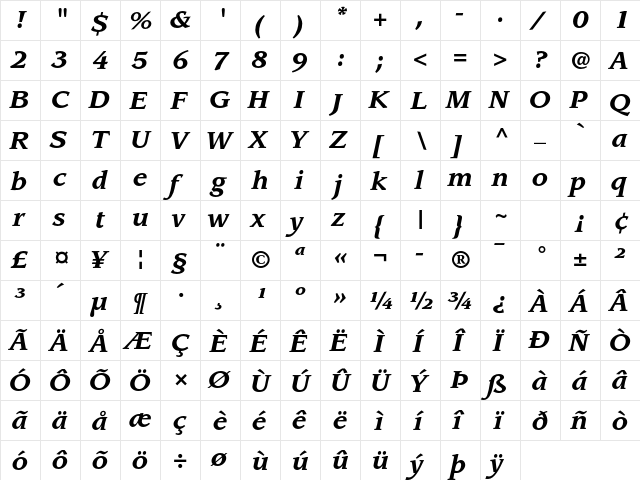
ITC Leawood Std Bold Italic Font Preview
ITC Leawood Std Bold Italic
ITC Leawood Std Bold Italic Font Details
| Designer | Leslie Usherwood |
Design Context for ITC Leawood Std Typeface
ITC Leawood Std echoes the hand-painted signage and woodblock typography of the American frontier, with a warm, rugged personality. The slanted form adds forward momentum and visual energy. The heavy weight commands attention and anchors typographic hierarchies.
Perfect for barbecue restaurants, country music branding, vintage poster design, and rustic packaging.
Font Pairing: Combine ITC Leawood Std with a simple slab or neutral sans — period-accurate companions reinforce the vintage feel without competing for attention.
Pro Tip: Pair ITC Leawood Std with aged textures or distressed backgrounds to amplify its vintage personality.